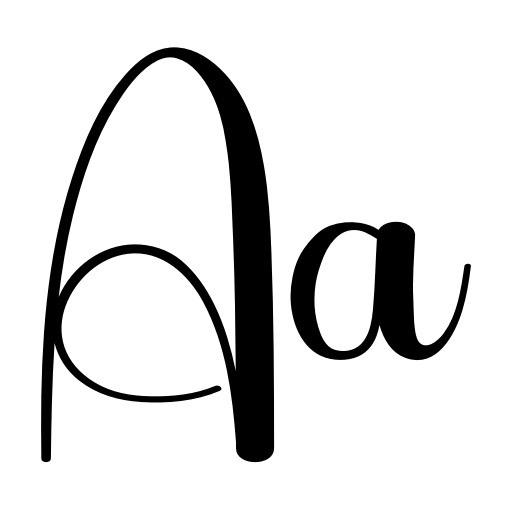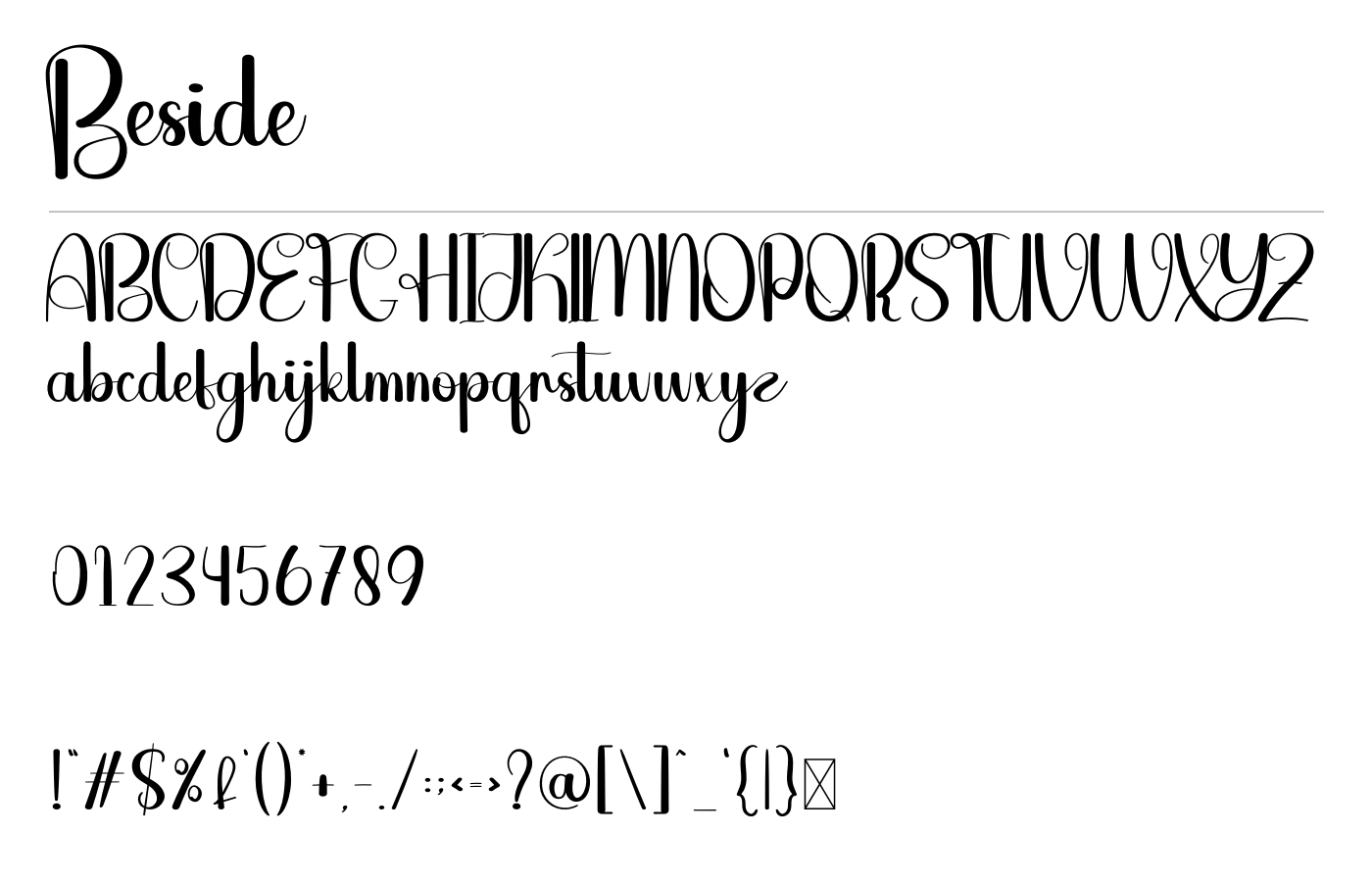
Beside Font is a playful and elegant script-style typeface with tall, slender letterforms and intricate swashes that add a whimsical charm. Its mix of thin and thick strokes creates a lively contrast, making it perfect for decorative purposes, invitations, or branding that seeks a friendly yet refined look. This font works well in headlines and logos where a sophisticated but approachable style is desired.
Beside Font